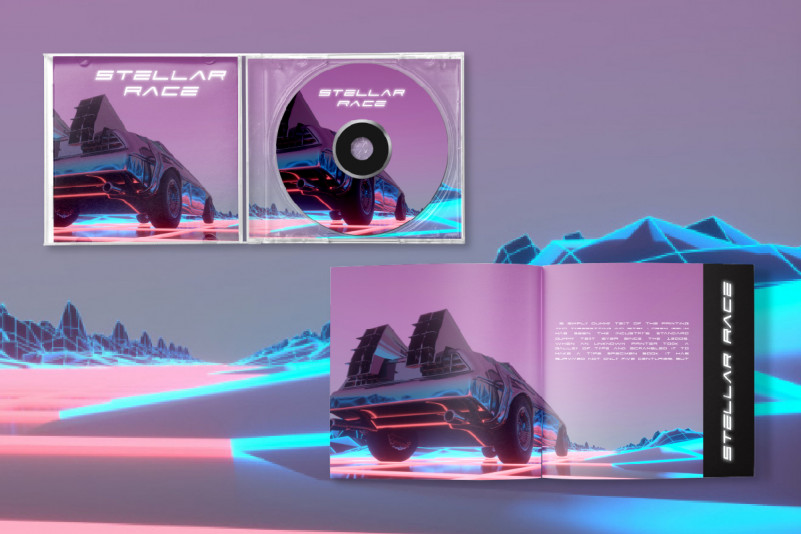
Active Space Display Font
This is a modern display sans serif font with special shapes. This font has futuristic and techno style that looks stunning in just about every context. Active Space will be great for many industries : Startup, Tech Company, Movie Headlines, Sports, Space company etc. Be standout with this font.